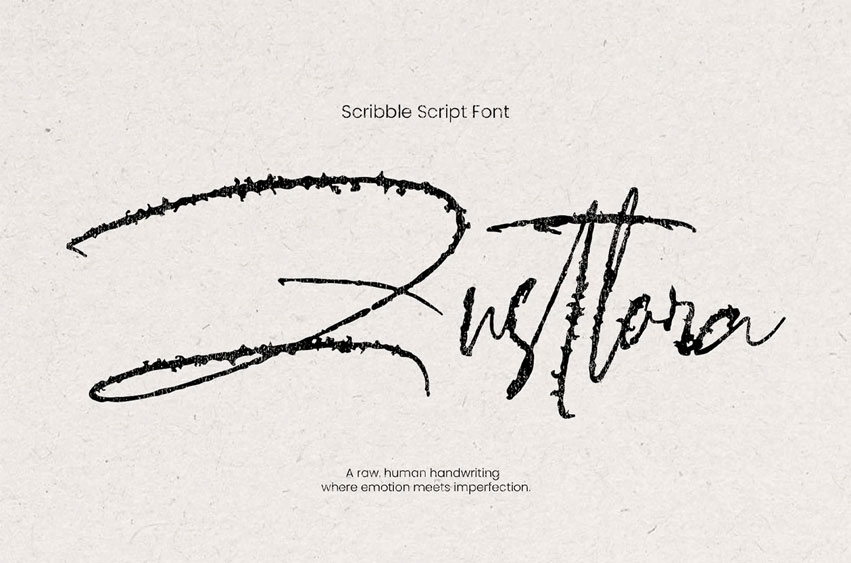
Zusttora Font Raw Scribble Script Font for Quotes. Zusttora is a raw scribble-style script font that captures the look of natural handwriting. The preview shows uneven strokes, textured lines, and spontaneous curves, creating a visual impression that feels human, imperfect, and expressive.
In the preview, Zusttora is used for quotes, expressive posters, handwritten notes, journal-style layouts, and emotional typography compositions. It appears in editorial-style visuals and text-forward designs where personal expression and mood are the main focus.